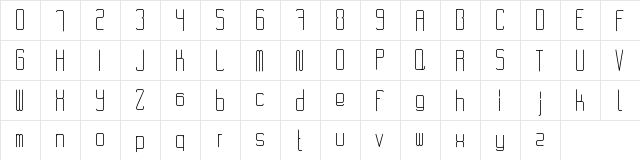
RvD_CODE28 Regular
Design Context for RvD_CODE28 Typeface
RvD_CODE28 brings the precise, column-aligned rhythm of monospaced typography to designs that value technical clarity and systematic order.
Well-suited to data-driven dashboards, coding tutorials, and any design that wants to reference the world of programming.